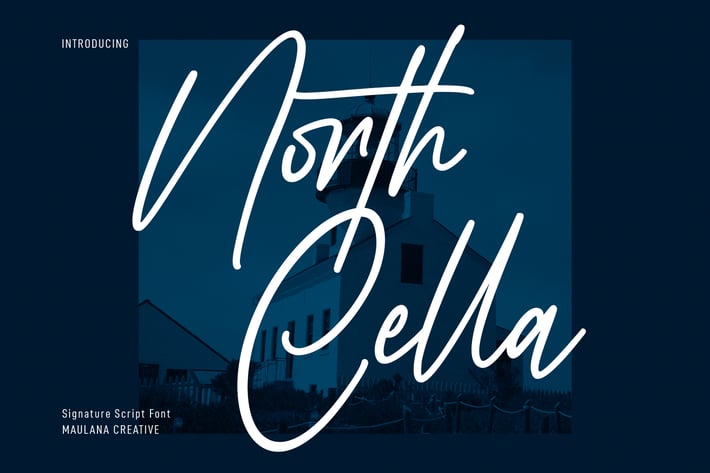
North Cella Signature Script Font
North Cella is a Casual Signature Script font. With semi mono-line light stroke, fun character with a bit of ligatures. To give you an extra creative work. North Cella font support multilingual more than 100+ language. This font is good for logo design, Social media, Movie Titles, Books Titles, a short text even a long text letter and good for your secondary text font with sans or serif. Make a stunning work with North Cella font.